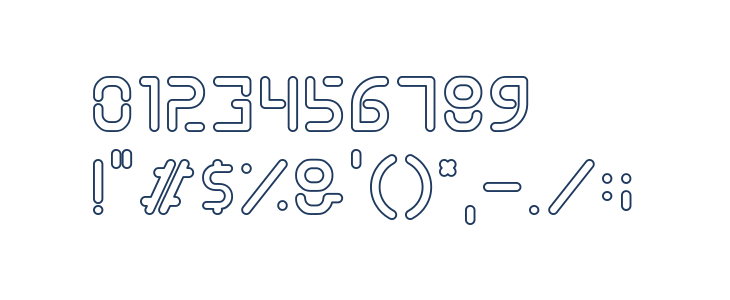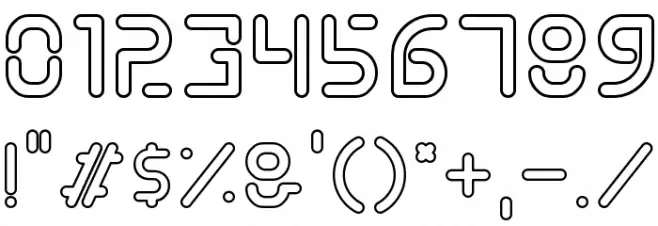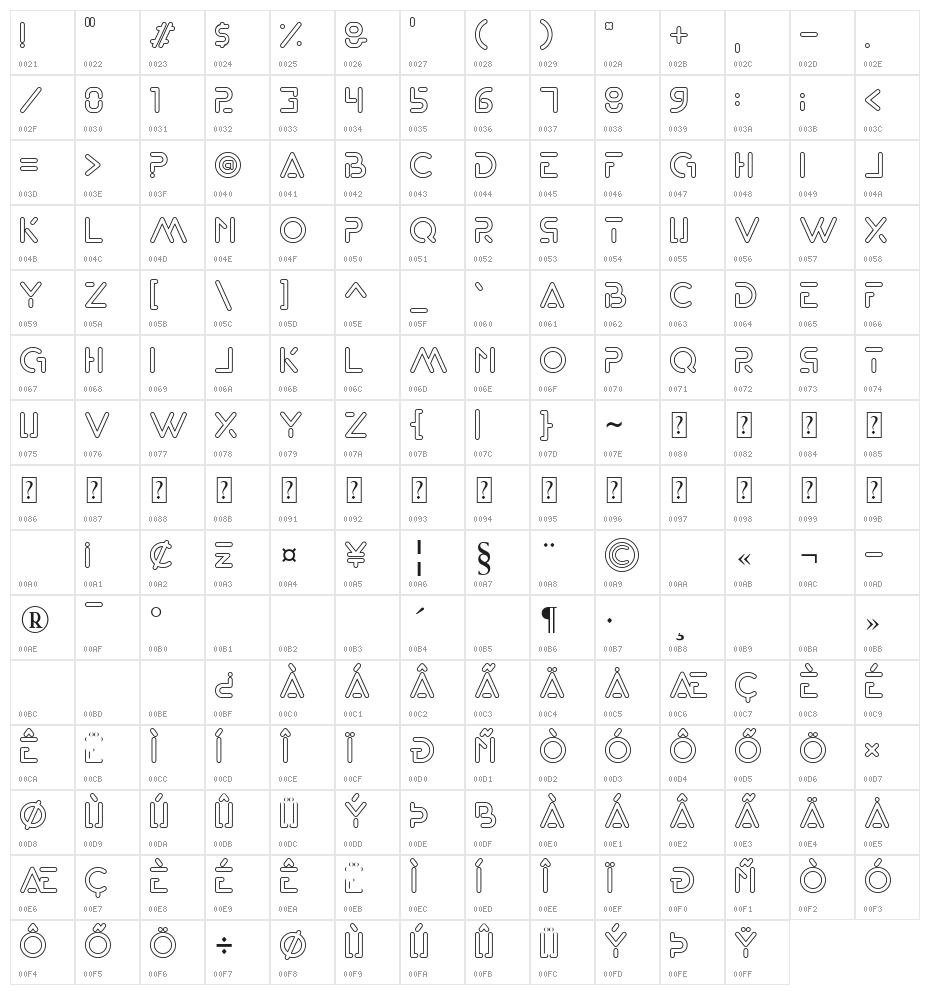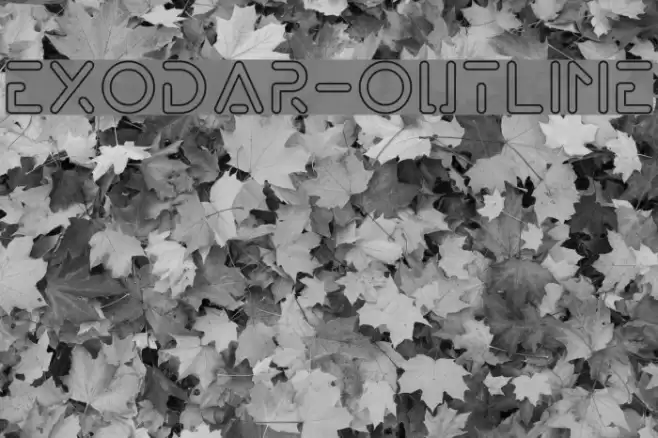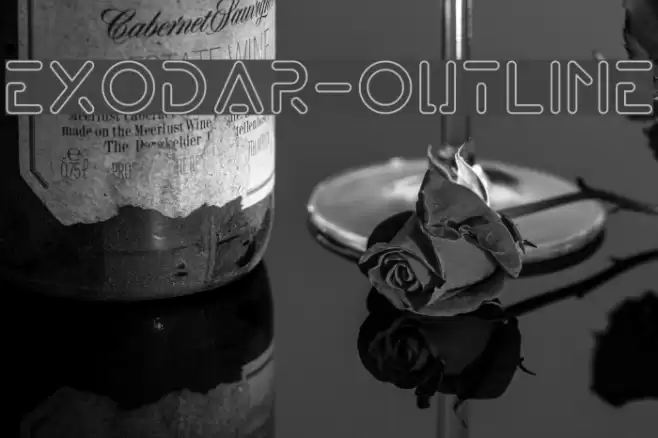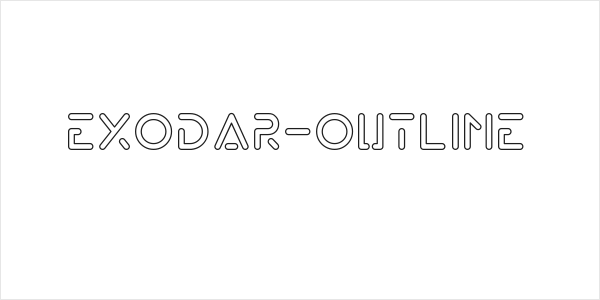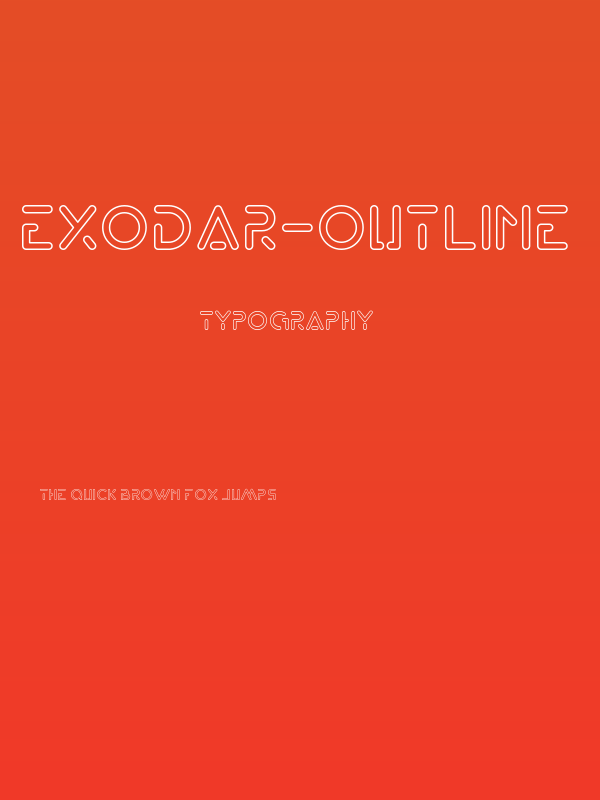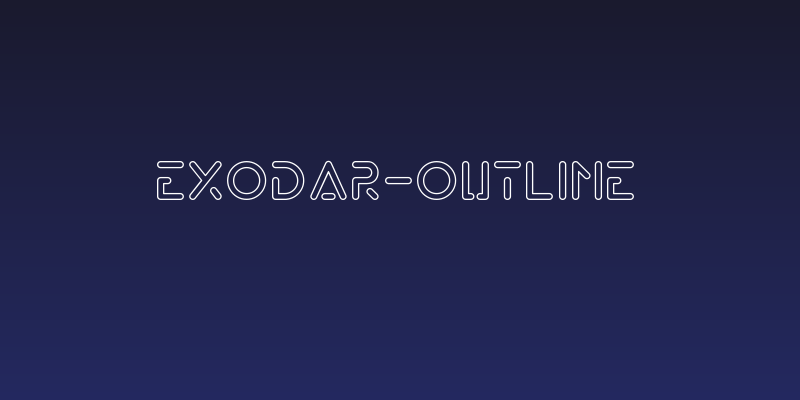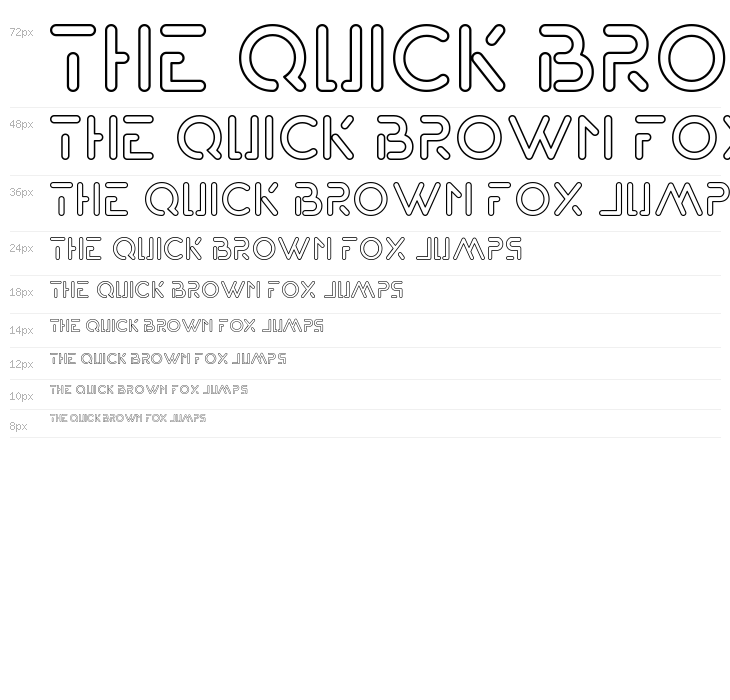
Exodar-Outline Font
Exodar-Outline Description
This font features a modern, geometric outline style with a futuristic aesthetic. The characters are constructed with clean, continuous lines that form distinct shapes, creating a sense of openness and space. The uppercase and lowercase letters maintain a consistent design, emphasizing symmetry and balance. The numerals and special characters follow the same outline pattern, ensuring uniformity across all glyphs. This font's unique design makes it suitable for projects that require a contemporary and innovative look.
| Proposed Projects | Ideal for tech branding, sci-fi themed designs, posters, and digital media. |